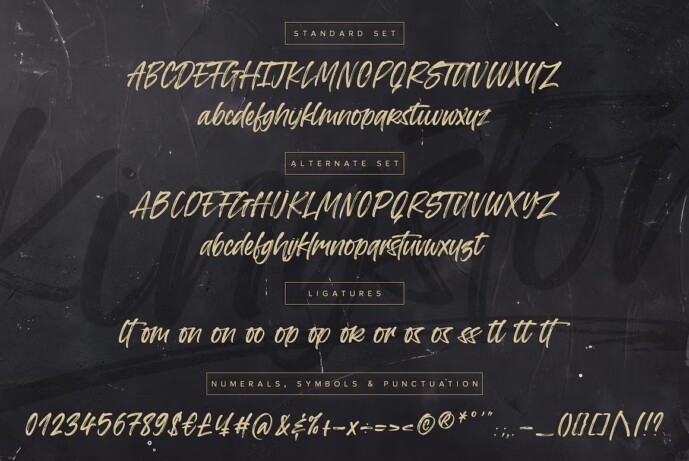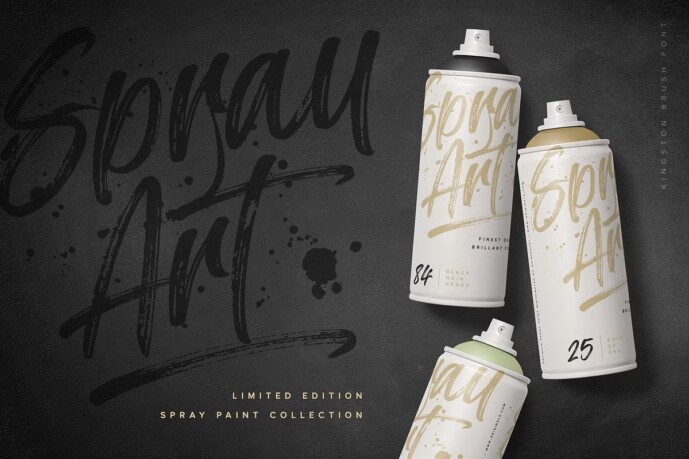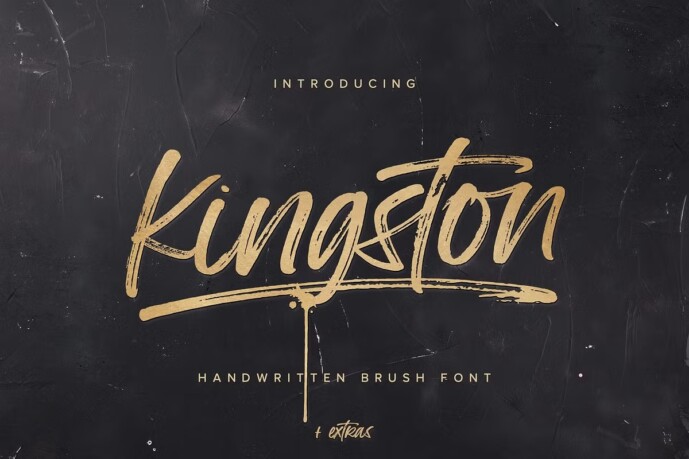
Kingston Brush Font
Designer: The Paper Town
Kingston Brush Font an handwritten font with a high detailed dry brush texture. Kingston has been designed to fit a wide range of projects from urban style to classic branding with a full alternative characters set to completely change the look of your design.
It also includes a set of 52 hand-drawn elements that will add a nice finishing touch to your text.
Kingston • A dry brush script font with uppercase and lowercase characters, alternative alphabet, ligatures, numerals and punctuation.
Kingston Extras • A full set of brushed elements : 33 hand-drawn swashes, 4 doodles and 14 paint drips and splatters you can easily access by typing any letter from A-Z and a-z.
Multilingual support • Kingston supports multilingual characters for western, central and south-east European languages.